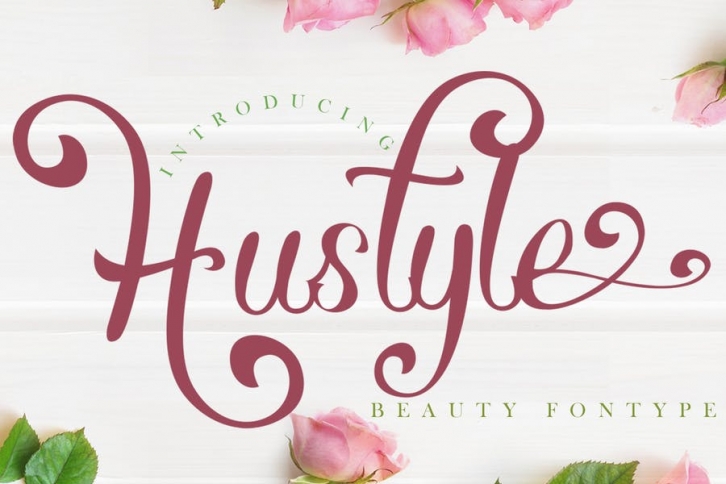
Hustyle Beauty Font This is our newest product called Hustyle Beauty Font. This is a Beautiful font designed according to general needs Hustyle is a very good font for logos, blogs / web headlines, clothing, invitations, posters, cafe / restaurant signs, and many others.
Ligature
Stylistic set for lowercase
Stylistic set for Ending